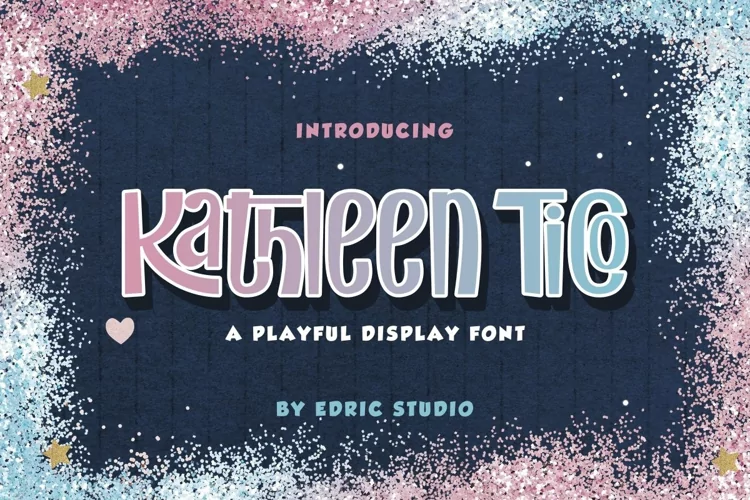
Kathleen Tico
Kathleen Tico Font is a modern and playful display font that will bring joyful to your designs. This font is chic and cute making it perfect for kids themed designs, mug design creations, snack industry, word art on frame and many other things.